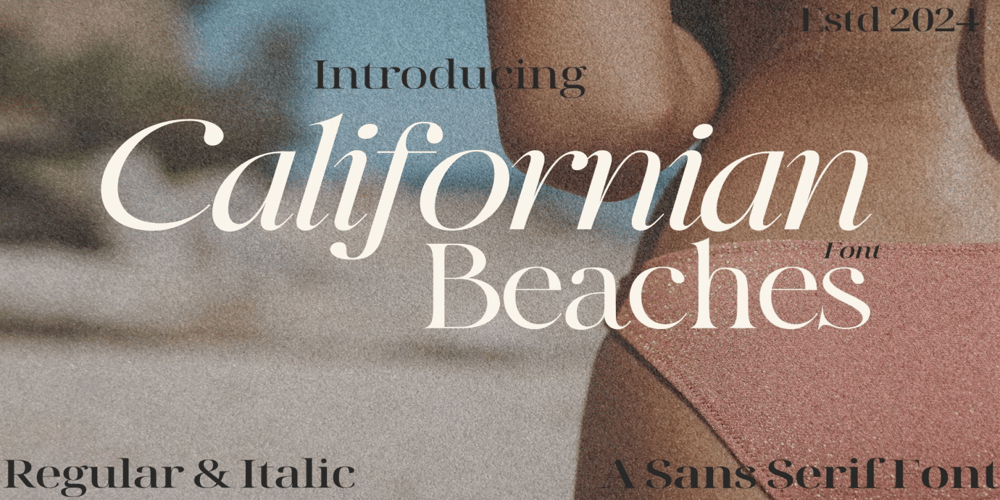
Californianbeaches Font Family was designed by Urs Lehni and published by Adita Fonts. Californianbeaches contains 2 styles and family package options. Californian Beaches is a classic serif family that have modern, luxurious, and glamour looks. With true italic version, you can use this font family for any purposes such as wedding invitations, logo, and branding. And if you are searching for timeless display serif, this font might suitable for you. Beige Culture also support multi language